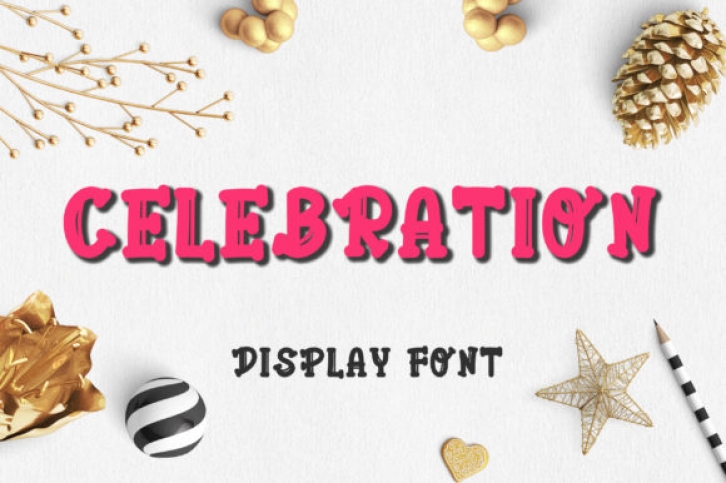
Celebration is a cheerful and authentic display font. It will elevate a wide range of design projects to the highest level, be it branding, headings, invitations, signatures, logos, labels, and much more!